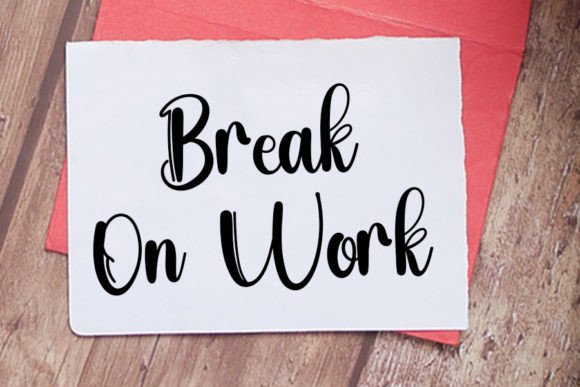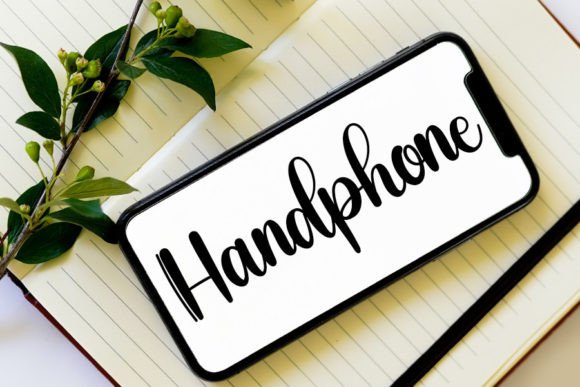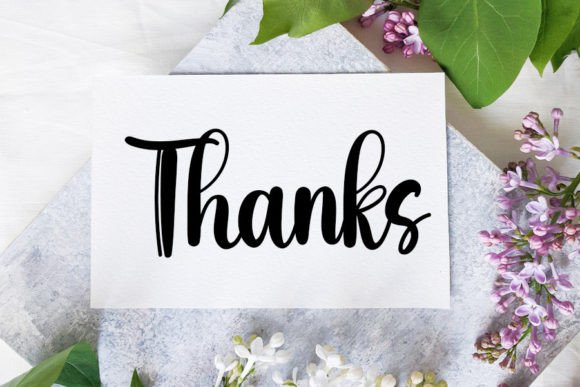
Sublimation Font
A Neat and Elegant Handwritten Typeface
Sublimation Font is a neat and beautiful handwritten typeface that adds an elegant touch to any design project. With its distinctive strokes and well-balanced characters, this font brings a sense of refinement and sophistication to your designs. Whether you’re working on wedding invitations, logos, or social media content, the Sublimation Font provides a timeless, charming appearance that is sure to capture attention and leave a lasting impression.
Perfect for Wedding Invitations and Special Occasions
For wedding invitations and other special occasion stationery, the Sublimation Font is the perfect choice. Whether you’re designing save-the-dates, RSVP cards, thank-you notes, or event programs, this font adds a romantic and elegant touch to your designs. Its graceful and refined appearance makes it ideal for weddings, anniversaries, and other meaningful occasions that require a timeless, beautiful style. The Sublimation Font ensures your invitations and event materials stand out with a personalized, luxurious feel.
Great for Logos and Branding
For logos and branding, the Sublimation Font brings a unique, sophisticated flair to your brand identity. Whether you’re creating a luxury brand logo, personal brand, or corporate materials, this font offers a perfect balance of elegance and artistic charm. The handwritten style adds a personalized touch to your branding, ensuring that your logo is both memorable and approachable. The Sublimation Font works well for businesses in fashion, beauty, and lifestyle industries, where creating a refined, distinctive brand is essential.
Ideal for Social Media and Digital Content
For social media posts and digital content, the Sublimation Font is an excellent choice. Whether you’re creating Instagram posts, Pinterest pins, or Facebook graphics, this font brings a charming, timeless touch to your designs. Perfect for quote graphics, product promotions, or event announcements, the Sublimation Font helps you create memorable content that engages your audience. Its elegant handwritten style gives your digital content a refined and personalized look, making it perfect for high-end branding or lifestyle posts.
Ideal for Greeting Cards and Invitations
For greeting cards and invitations, the Sublimation Font adds a graceful, elegant touch to your designs. Whether you’re designing birthday cards, holiday greetings, or thank-you notes, this font ensures your cards feel personalized and special. Its neat and beautiful design makes it perfect for both formal and casual occasions, adding a timeless charm that resonates with your recipients. The Sublimation Font elevates your greeting cards, ensuring they leave a lasting impression.
Perfect for Product Packaging and Labels
For product packaging and labels, the Sublimation Font provides a premium, elegant feel to your designs. Whether you’re designing product labels, gift packaging, or seasonal items, this font ensures your branding feels luxurious and sophisticated. Its graceful handwritten design is perfect for artisan goods, luxury products, or custom gifts, adding a personal touch to your products. The Sublimation Font helps convey a sense of quality, making it ideal for businesses looking to stand out with refined packaging.
Versatile, Legible, and Elegant
Despite its delicate handwritten design, the Sublimation Font remains legible and easy to use. Its well-spaced characters and consistent letterforms ensure that your text remains clear and readable, even in smaller sizes or for longer passages. Whether you’re using it for headlines, captions, or body text, this font strikes the perfect balance between creativity and readability, making it suitable for a wide range of design applications, from print to digital media.
The Sublimation Font is easy to use and integrates smoothly into most design software. Whether you’re working on wedding invitations, logos, greeting cards, or social media content, this font ensures your designs look polished and professional while maintaining a personalized touch. Its versatility makes it perfect for both print and digital media, giving you the flexibility to use it across various projects with ease.
Add Elegance and Charm to Your Designs with Sublimation Font
If you’re looking for a delicate, elegant handwritten font that adds a personalized, timeless touch to your designs, the Sublimation Font is the perfect choice. Whether you’re designing wedding invitations, logos, greeting cards, or social media posts, this font will help you create memorable, elegant designs that stand out. Let the Sublimation Font bring a graceful and charming touch to your projects and leave a lasting impression with its refinement and beauty.